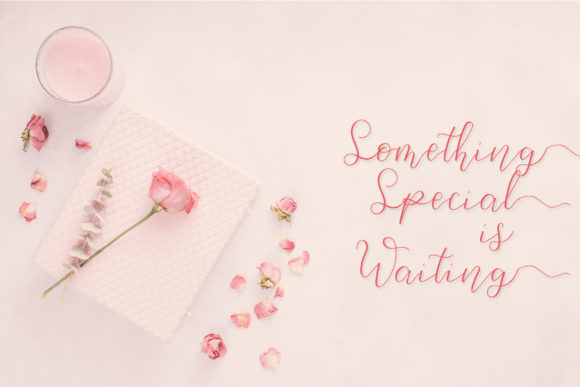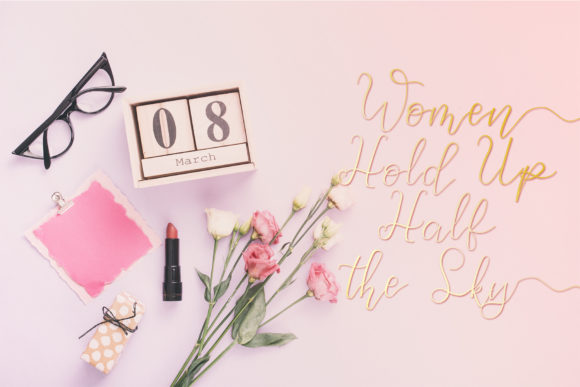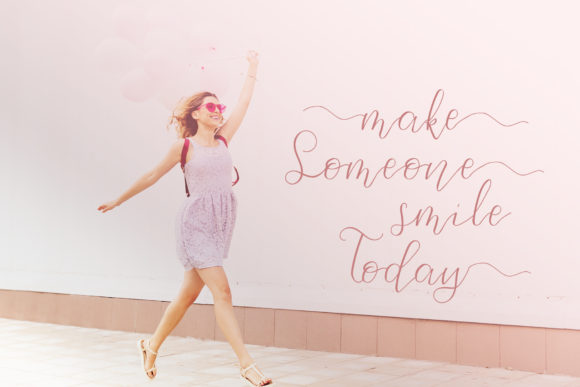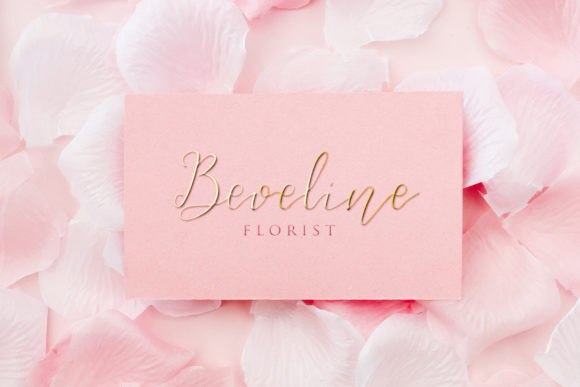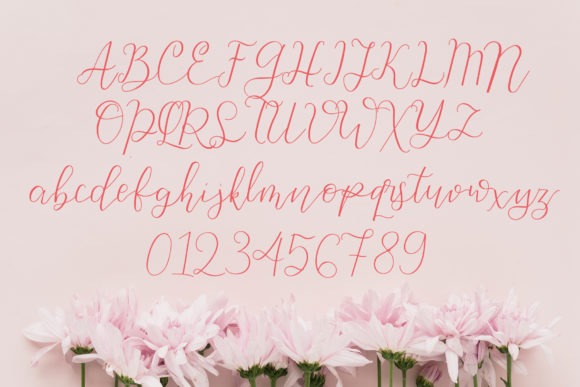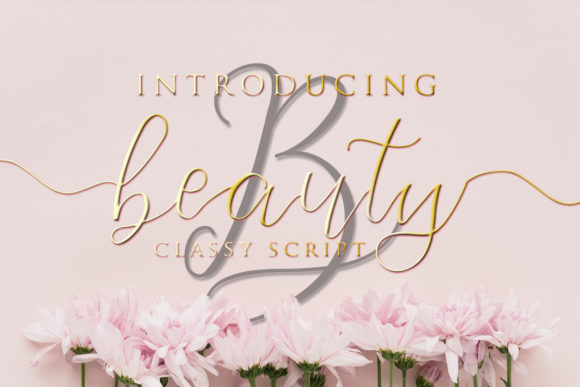
Introducing Beauty Flowers Font: Elevate Your Designs with Elegance
Are you a designer, crafter, or social media enthusiast looking for a font that exudes elegance and sophistication? Look no further than the Beauty Flowers Font! This lovely script font is perfect for adding a touch of refinement to your cards, social media posts, quotes, branding, and more.
The Beauty of Script Fonts
Script fonts have long been a favorite among designers and crafters for their ability to add a personal touch to any project. They can evoke emotions, convey elegance, and create a sense of luxury. The Beauty Flowers Font is no exception. With its flowing lines and delicate curves, this font is sure to make your designs stand out.
What Makes Beauty Flowers Font Special?
So, what sets the Beauty Flowers Font apart from other script fonts on the market? Here are just a few reasons why this font is a must-have for any designer or crafter:
- Elegant Look: The Beauty Flowers Font has an undeniably elegant look that is perfect for high-end designs, luxury brands, and sophisticated social media posts.
- Versatility: This font can be used for a wide range of projects, from cards and invitations to quotes and branding materials.
- Easy to Read: Despite its elegant appearance, the Beauty Flowers Font is easy to read, making it perfect for use in body text or captions.
Whether you’re a professional designer or a crafter looking to add a personal touch to your projects, the Beauty Flowers Font is the perfect choice. Here are just a few ways you can use this beautiful font:
- Cards and Invitations: Add a touch of elegance to your cards and invitations with the Beauty Flowers Font.
- Social Media Posts: Elevate your social media posts with this beautiful script font, perfect for quotes, inspirationals, and more.
- Branding: Use the Beauty Flowers Font to create a luxurious brand identity that sets you apart from the competition.
- Quotes and Inspirationals: Add a touch of sophistication to your quotes and inspirationals with this beautiful font.
Tips for Using Beauty Flowers Font
To get the most out of the Beauty Flowers Font, here are a few tips to keep in mind:
- Pair with a Bold Font: Pair the Beauty Flowers Font with a bold font for a striking contrast that adds visual interest to your designs.
- Use for Headlines: Use the Beauty Flowers Font for headlines and titles to add a touch of elegance to your designs.
In conclusion, the Beauty Flowers Font is a must-have for any designer or crafter looking to add a touch of elegance to their projects. With its flowing lines, delicate curves, and versatile design, this font is perfect for a wide range of applications. Whether you’re creating cards, social media posts, quotes, or branding materials, the Beauty Flowers Font is sure to elevate your designs and make them stand out.